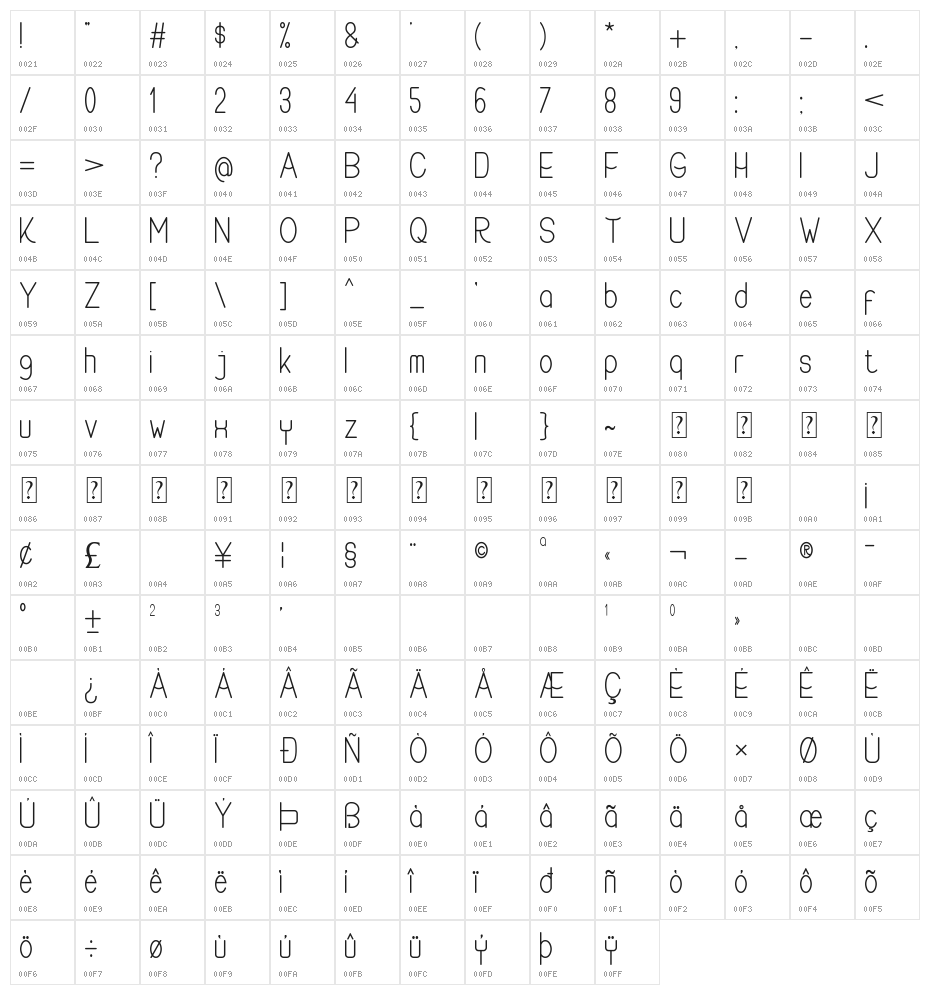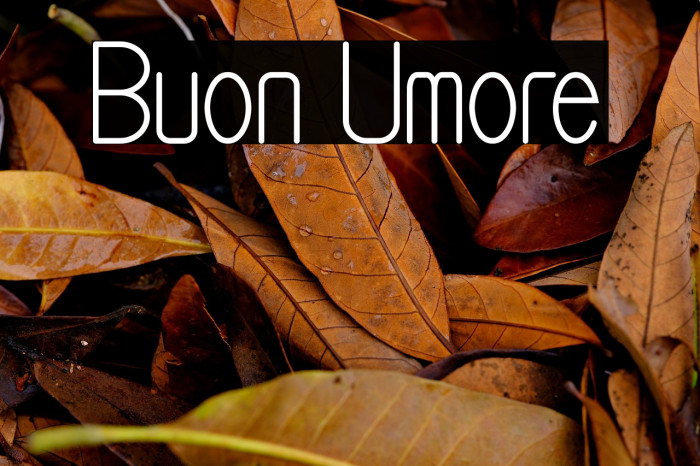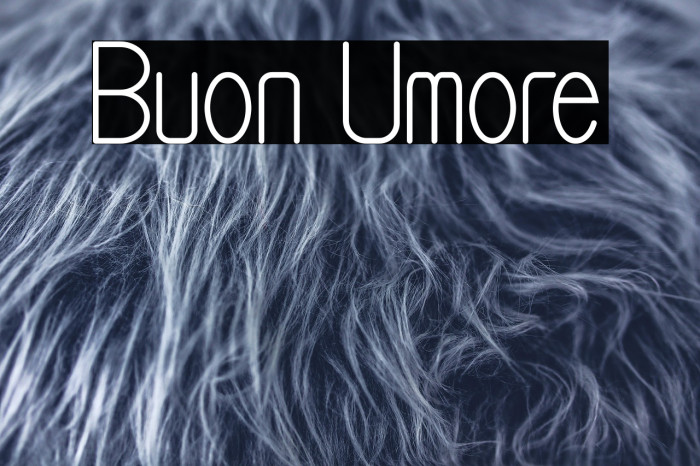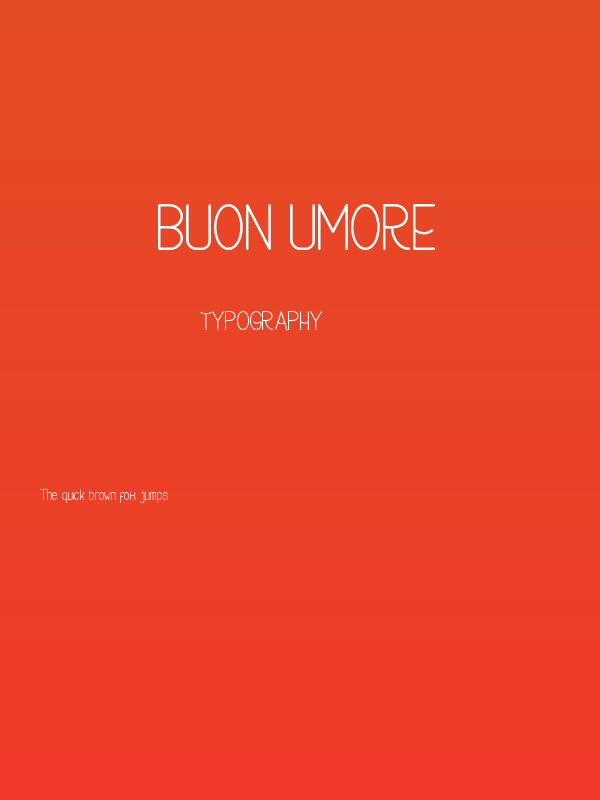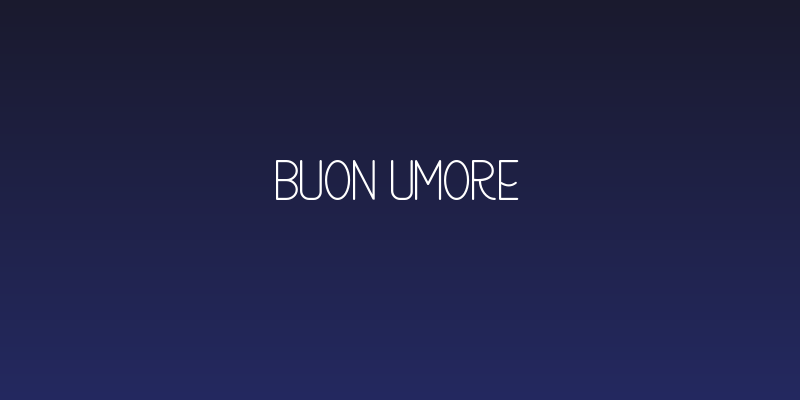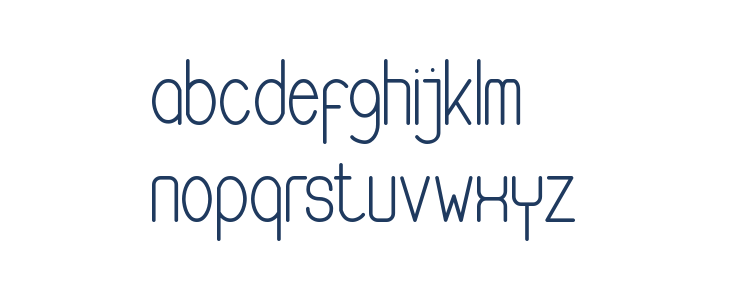
Buon Umore Font
Buon Umore Description
This font features a clean and modern design with rounded edges and a geometric structure. The uppercase and lowercase letters maintain a consistent height, contributing to a uniform appearance. The numerals are distinct and align well with the overall style, ensuring readability. Special characters are well-integrated, maintaining the font's cohesive look. The font's simplicity and clarity make it versatile for various applications, from digital to print media.